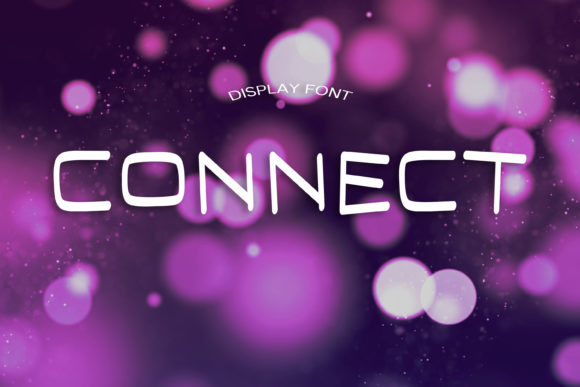
Introducing Connect Font - where elegance and strength collide, creating a timeless masterpiece that will elevate your designs to new heights.
Embark on a typographic journey with Connect Font, a captivating display font that captivates with its undeniable charm and versatility. Crafted by the visionary dmytroyarish, this font is a true testament to the power of creativity and innovation.
Connect Font transcends the boundaries of ordinary fonts, gracing your designs with an air of sophistication and timeless appeal. Its meticulously crafted characters dance across the page, exuding confidence and individuality. Each letterform is a work of art, carefully designed to evoke emotions and convey messages with unparalleled clarity and impact.
Whether you're a seasoned designer or just starting to explore the realm of typography, Connect Font is your perfect companion. Its intuitive nature and user-friendly design make it accessible to all, empowering you to create stunning visuals that leave a lasting impression.
Step into the world of Connect Font and unleash your imagination. Let your designs radiate with a captivating allure that will draw attention and captivate hearts. From eye-catching headlines to sophisticated branding, Connect Font seamlessly adapts to your every need, transforming ordinary text into extraordinary expressions.
Don't settle for ordinary fonts that blend into the background. Choose Connect Font - the font that commands attention, ignites inspiration, and sets your designs apart as truly exceptional.